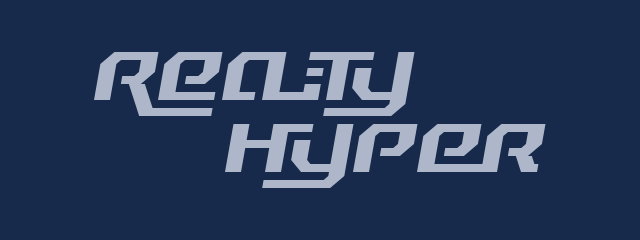
Preview and download Reality Hyper Font. Created by Jayvee Enaguas in Techno Square styles with Public domain / GPL / OFL license.
Reality Hyper (also known as Reality 64) is an open-source font of squared italic. Created and edited by GrandChaos9000 Licensed from Creative Commons (CC-BY-SA 4.0) and SIL Open Font License 1.1 © Grand Chaos Productions. |